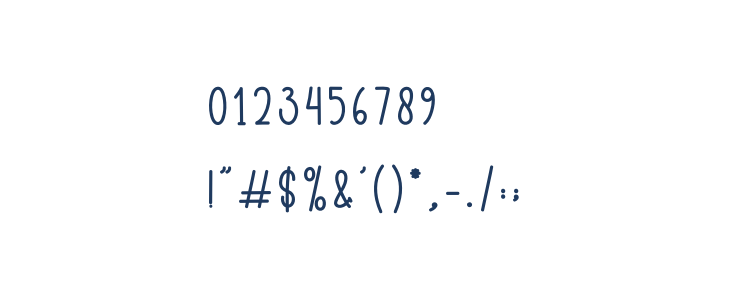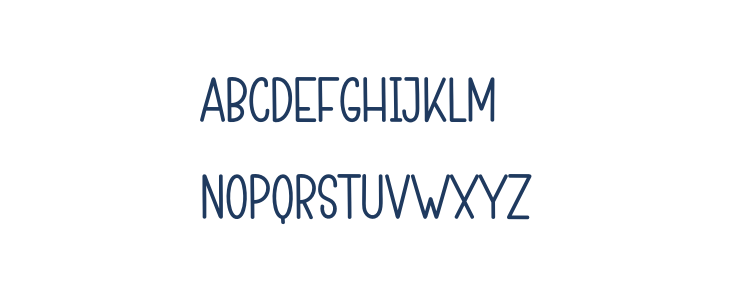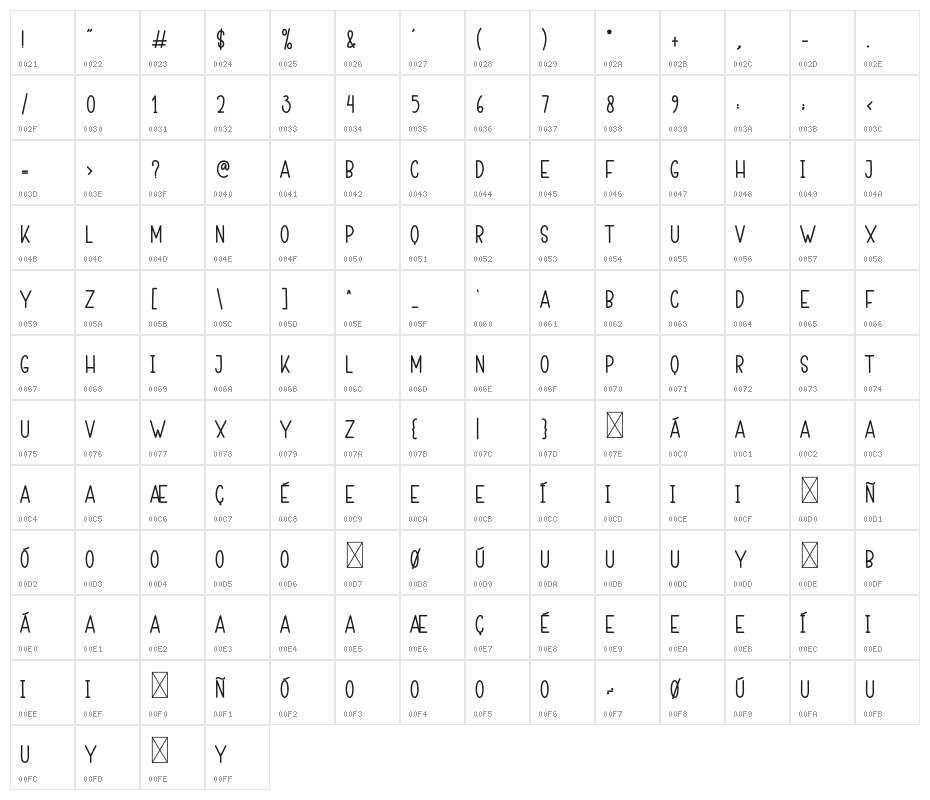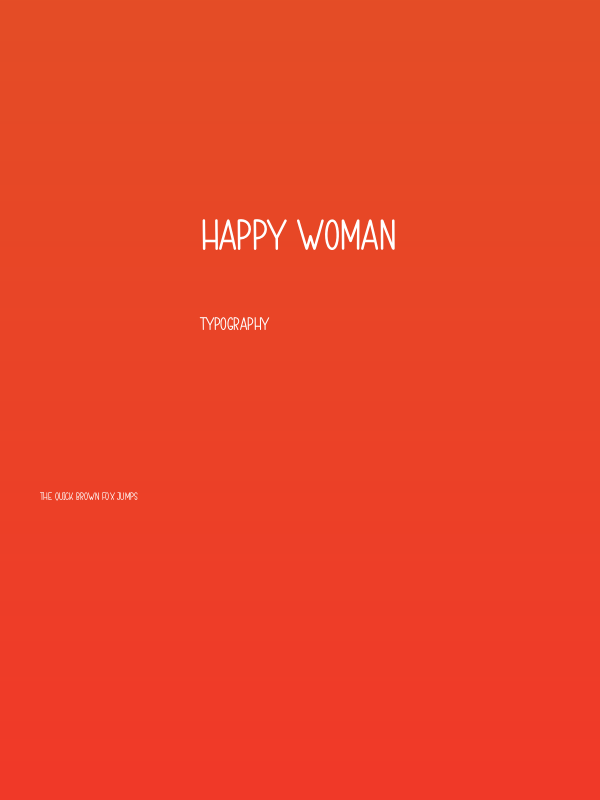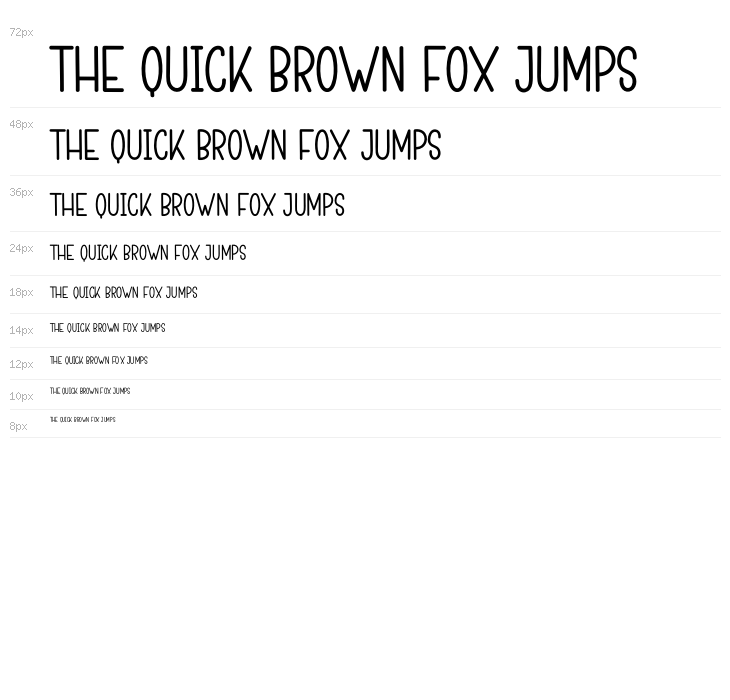
Happy Woman Font
Happy Woman Description
A playful, rounded sans-serif font with a handwritten feel, featuring consistent stroke width and slightly irregular character shapes that add a friendly, informal touch.
| Overall Style | Playful, Informal, Friendly |
| Use Case | Headlines, Logos, Short text, Invitations |
| Proposed Projects | ChildrenΓ’β¬β’s books, greeting cards, playful branding, informal posters, social media graphics. |